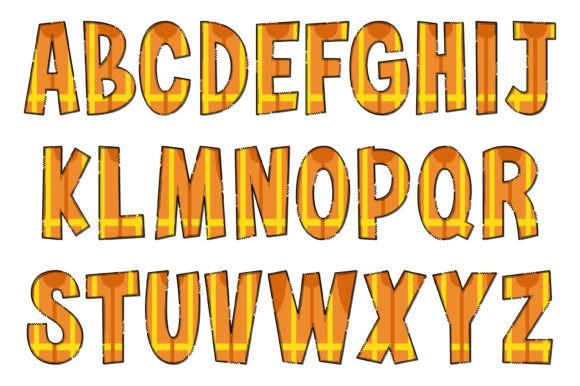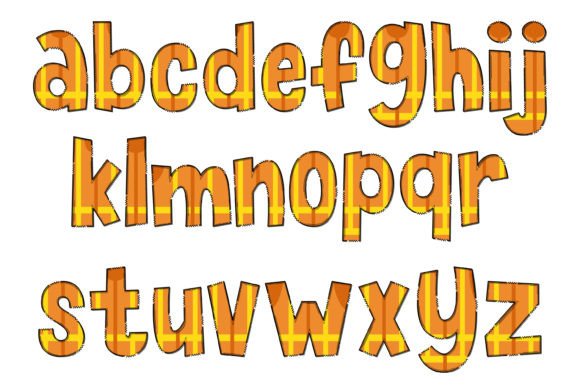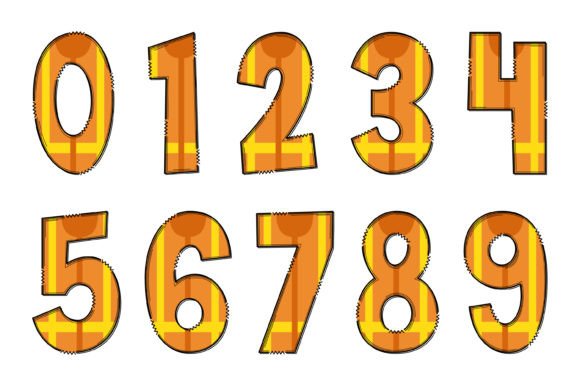
Introduction to Safety Vest Font
Have you ever stared at a blank page, waiting for inspiration to strike, only to be greeted by a sea of font options that leave you feeling overwhelmed? As a designer, you know that the right font can make or break a creative project. That’s why we’re excited to introduce you to the Safety Vest Font, a high-quality design resource that’s sure to add a touch of whimsy to your next project.
Whether you’re designing a children’s book, a poster, or a greeting card, the Safety Vest Font is the perfect choice for anyone looking to add a playful and artistic feel to their work. This versatile font is compatible with a range of design software, including PhotoShop, Illustrator, and Silhouette, making it easy to incorporate into your creative projects.
Key Features of Safety Vest Font
- High-quality design resource ideal for creative projects and presentations.
- Features a transparent background for easy integration into any design.
- Designed with a focus on readability, ensuring clear and legible text in any application.
Honest Review: Safety Vest Font
I recently stumbled upon the Safety Vest Font, a design resource that caught my attention. The font’s unique aesthetic makes it perfect for creative projects that require a bold and eye-catching look.
- ✨ High-quality design: The font is well-crafted and has a clean, professional look.
- ✨ Transparent background: The font is available with a transparent background, making it easy to use in various design scenarios.
- ⚠️ Limited font styles: The font only comes in a few styles, which might not be suitable for projects that require a wide range of font variations.
- ⚠️ Not ideal for small text: Due to its bold design, the font might not be the best choice for small text or fine print.
Overall, I think the Safety Vest Font is a great addition to any designer’s toolkit. While it has some limitations, its unique design and high-quality construction make it a valuable resource for creative projects. If you’re looking for a bold and eye-catching font, the Safety Vest Font is definitely worth checking out.
How to Use Safety Vest Font
The Safety Vest Font is a unique design resource that offers a high quality, creative solution for your next project. This versatile font features a transparent background, making it perfect for various applications.
The Safety Vest Font is commonly used in various creative projects, including:
- Marketing materials
- Logos and branding
- Presentations and reports
- Social media posts
Tips for Getting the Most Out of Safety Vest Font
To get the most out of the Safety Vest Font, consider the following tips:
- Experiment with different font sizes and styles
- Combine the font with other design elements for a unique look
- Use the font on a transparent background for a modern feel